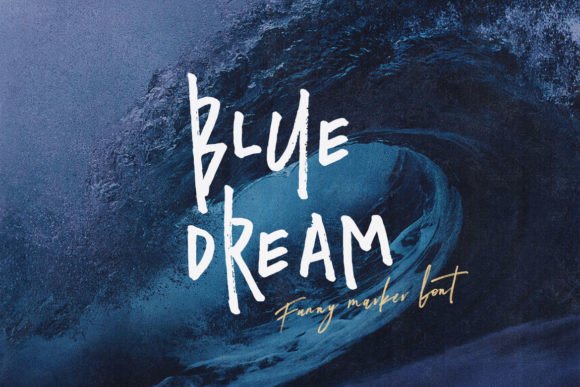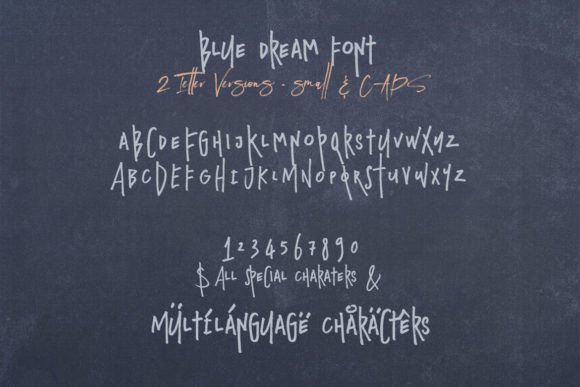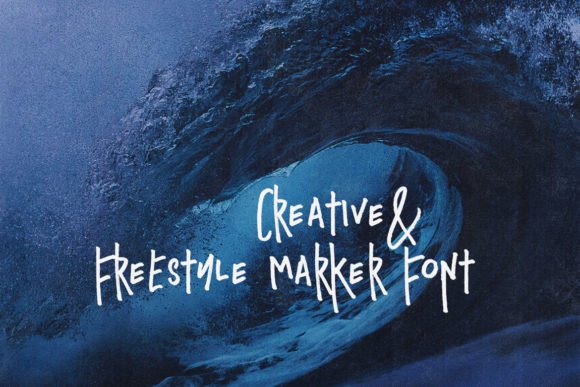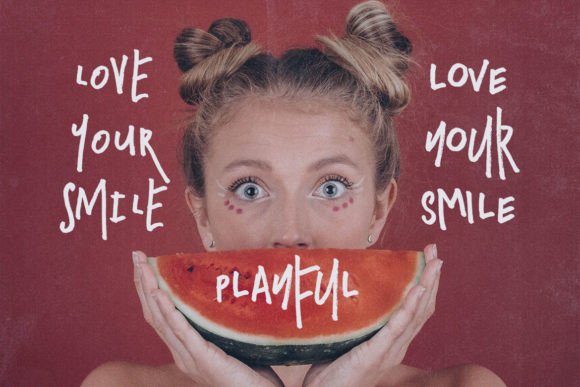
Blue Dream Font: Funky Grunge Display Font for Creative Designs
About the Blue Dream Font
Step up your design game with Blue Dream Font, a font that exudes confidence and style. Blue Dream is a fun and funky sans display font perfect for your new projects. Great for grunge or artistic designs that will instantly enhance!
Blue Dream’s bold, playful energy makes it ideal for headlines, posters, and branding projects requiring a strong visual impact. It excels in short, impactful statements and works well for packaging designs targeting younger demographics or creative industries. However, its highly stylized nature makes it unsuitable for body text or UI elements where readability is paramount.
Consider pairing Blue Dream with a clean sans-serif like Lato for a balanced contrast, or a classic serif such as Garamond for a touch of sophistication. For a more playful feel, a rounded geometric sans-serif like Circular would work well. Avoid pairing it with other highly decorative fonts, as this will create visual clutter.
The font’s overall personality is energetic and youthful, conveying a sense of fun and creativity. It’s best suited for brands aiming for a distinctive, memorable visual identity that reflects a bold and artistic approach.
Blue Dream Font Usage Examples
Blue Dream Font Example